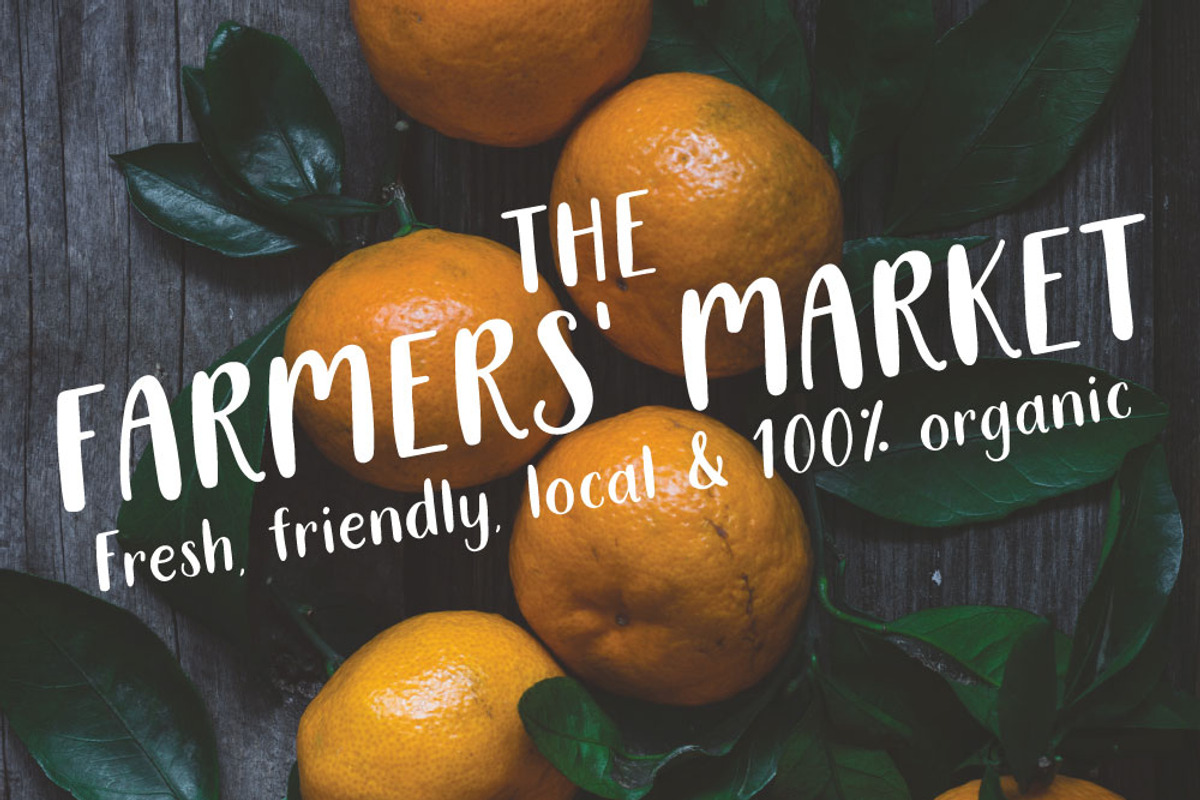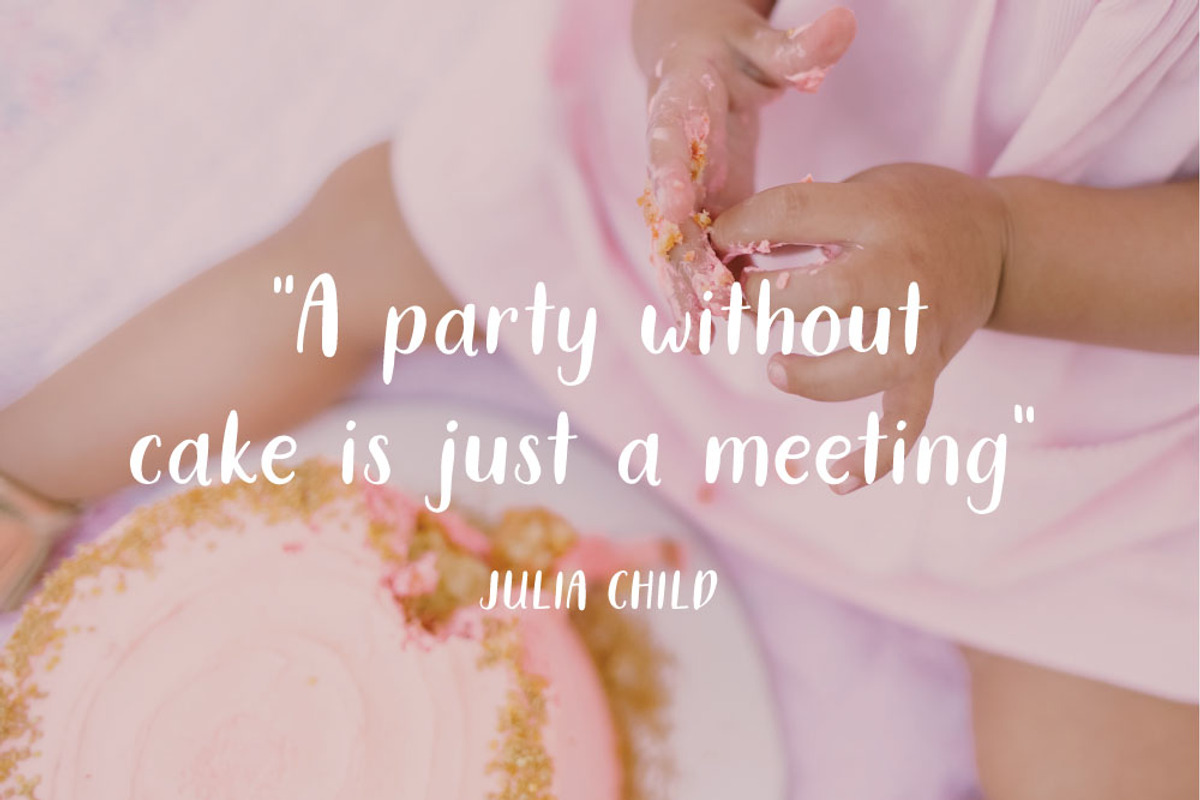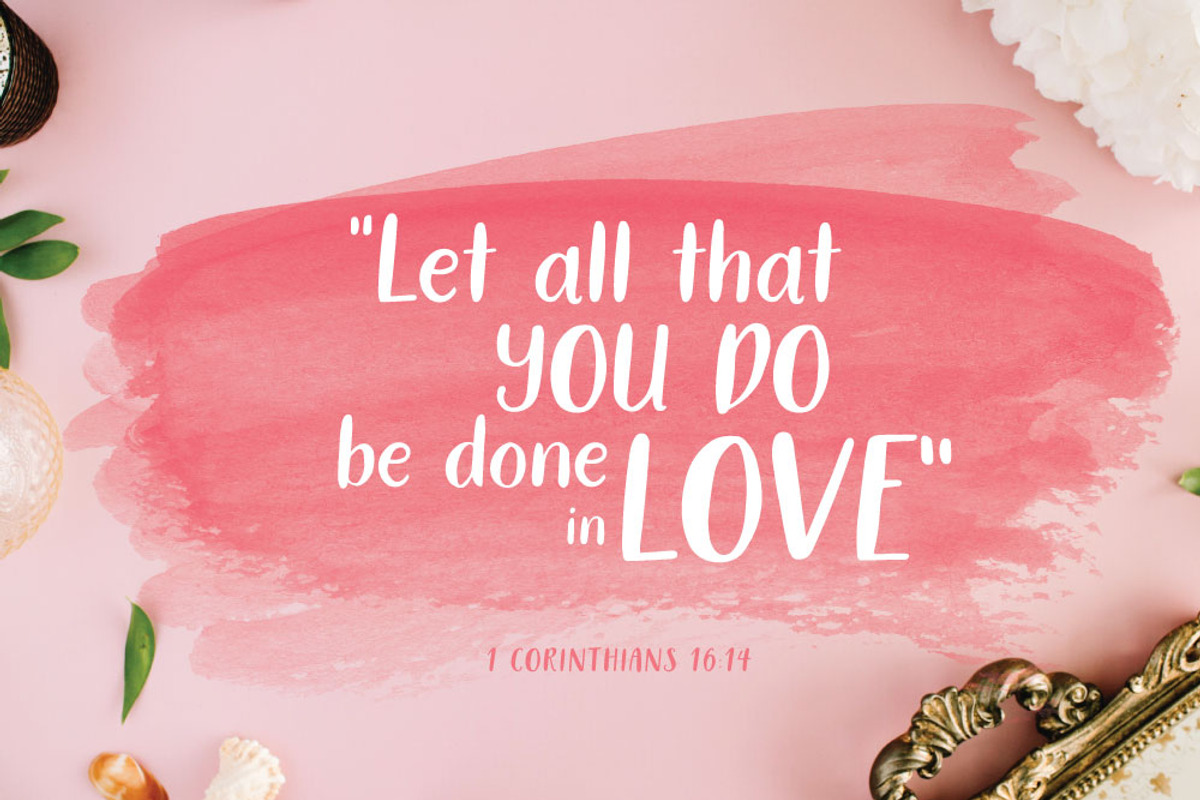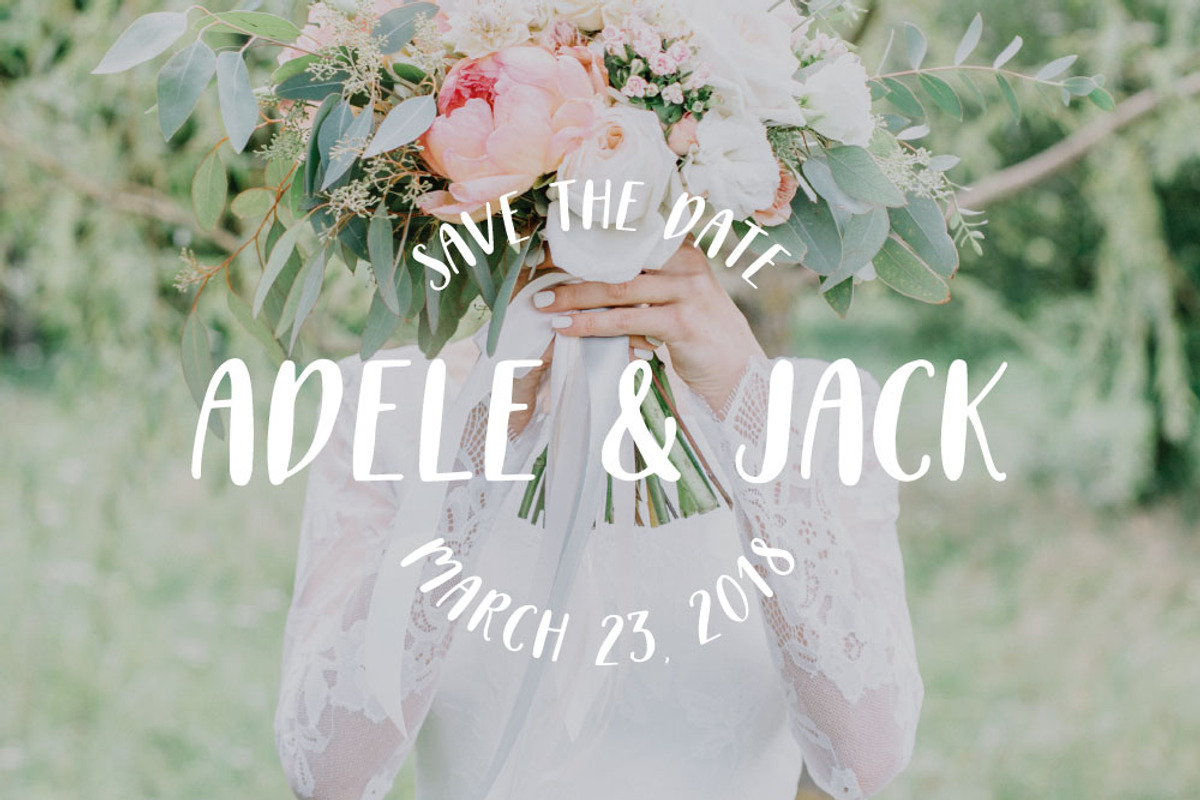
Sweet Julie Font
Sweet Julie Font by Creator Goodies is a font selected for branding, posters, packaging, typography.
Why Sweet Julie Font is worth a look
Sweet Julie Font by Creator Goodies fits naturally into Branding, posters, packaging, typography.